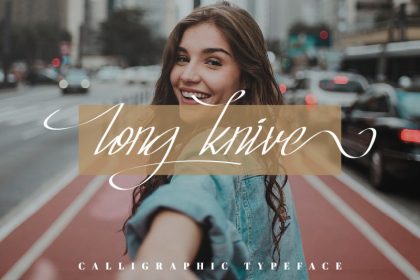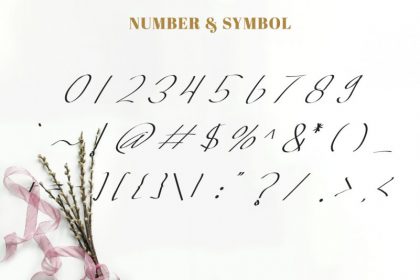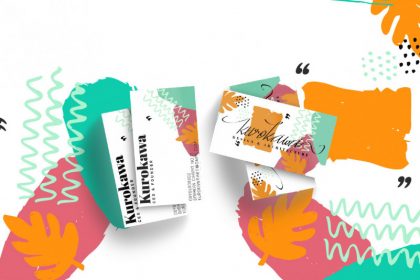
Hi Everyone! Introducing our third font : Long Knive Calligraphy Font! This is a new modern script handwriting calligraphy style font. It has a fresh, elegant, natural and stylish glyphs.
Great for branding, logo, stationery, business card, signage, flyer, brochure etc. There are many industries that is suitable for this font : wedding, real estate, law firm, photography, retail, salon, make up artist, etc